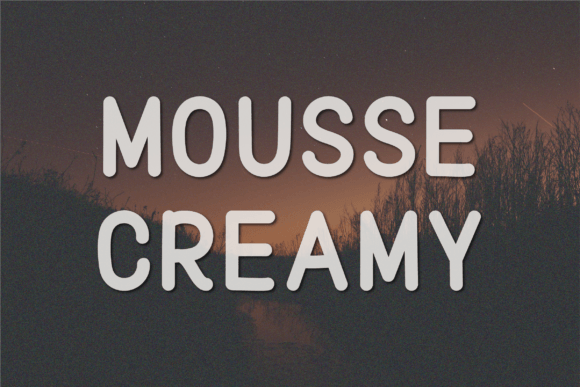
Delve into the world of elegance and grace with Mousse Creamy Font, the enchanting all-caps sans serif that will captivate your audience. Its whimsical curves and playful demeanor add a touch of delight to any creative endeavor, whether it be crafting, digital design, presentations, or designing heartfelt greeting cards.
Unleash your inner artist and let your imagination soar with Mousse Creamy Font. Its versatile nature makes it the perfect companion for a myriad of projects, transforming your words into captivating works of art. With its ability to effortlessly elevate any design, Mousse Creamy Font is not just a font; it's an invitation to step into a realm of endless creative possibilities.
Experience the joy of designing with a font that speaks to your heart and resonates with your audience. Mousse Creamy Font is more than just a collection of letters; it's a pathway to expressing your individuality and leaving a lasting impression. Embrace the magic of Mousse Creamy Font today and let your creativity blossom.